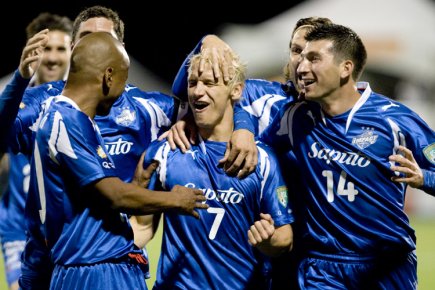
font name on jersey shirts
Hi, I'm looking for the font on this picture (the number on the shirt).
Okay. I looked at it and figured the fold in the shirt was covering up that portion of the "4". The other fully visible numerals appear to be VAG. Other than that, I have no suggestions.